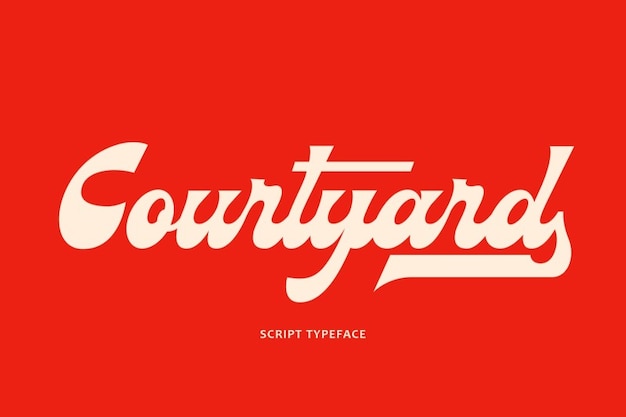
Courtyard Font
"Courtyard" font embodies the spirit of collegiate baseball with its classic lettering and swash details. Inspired by jersey designs and stadium signage, it brings a touch of nostalgia and athleticism to your projects. Perfect for evoking the timeless appeal of America's favorite pastime and the camaraderie of college teams.